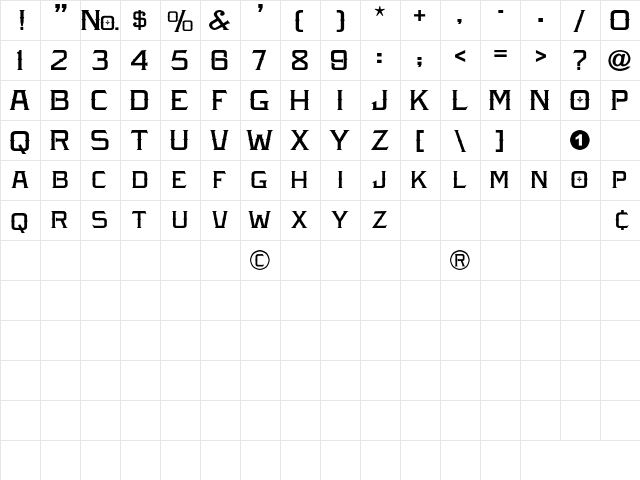
Amarillo Lhf Regular Regular
Design Context for Amarillo Lhf Regular Typeface
Amarillo Lhf Regular is a composed and adaptable typeface that performs quietly and consistently across a wide range of design contexts.